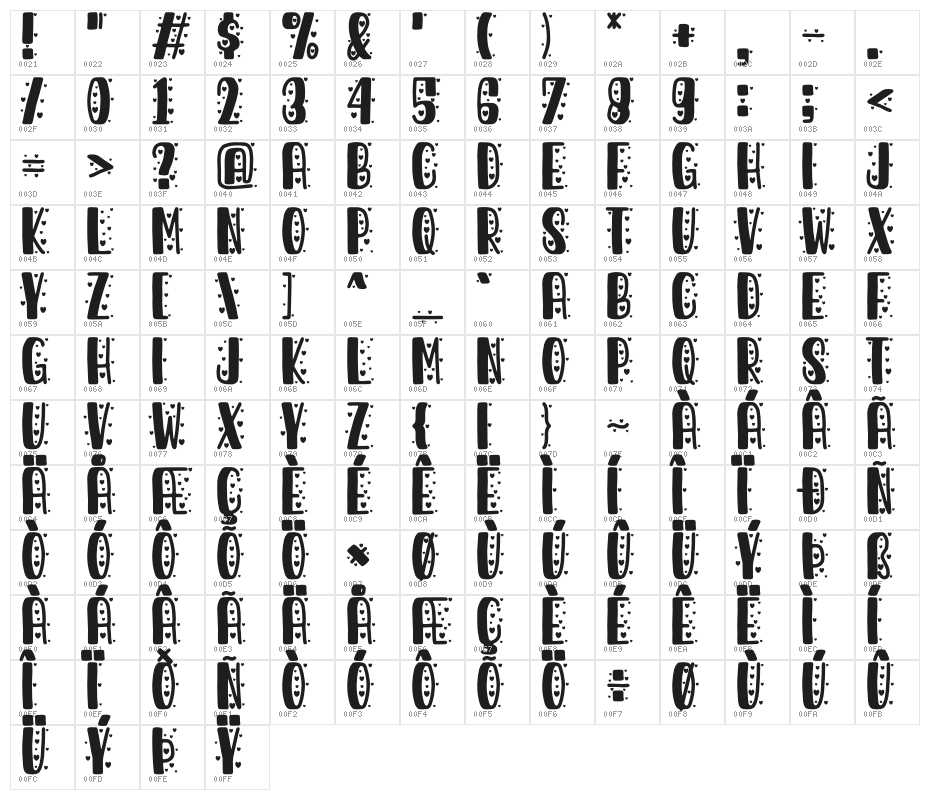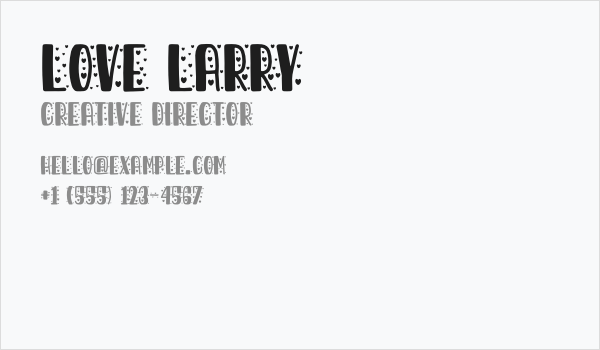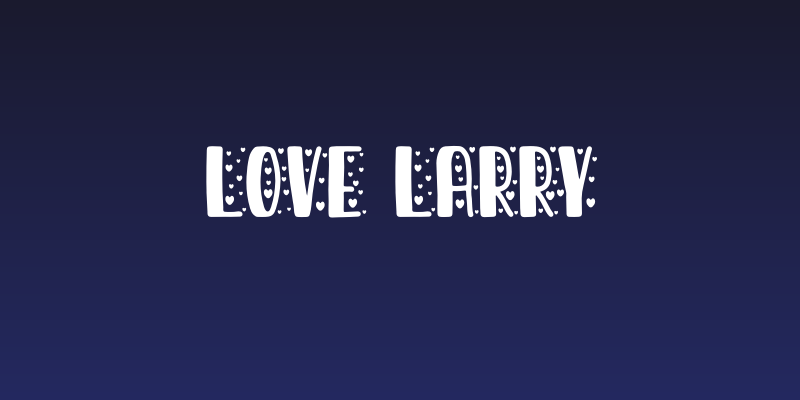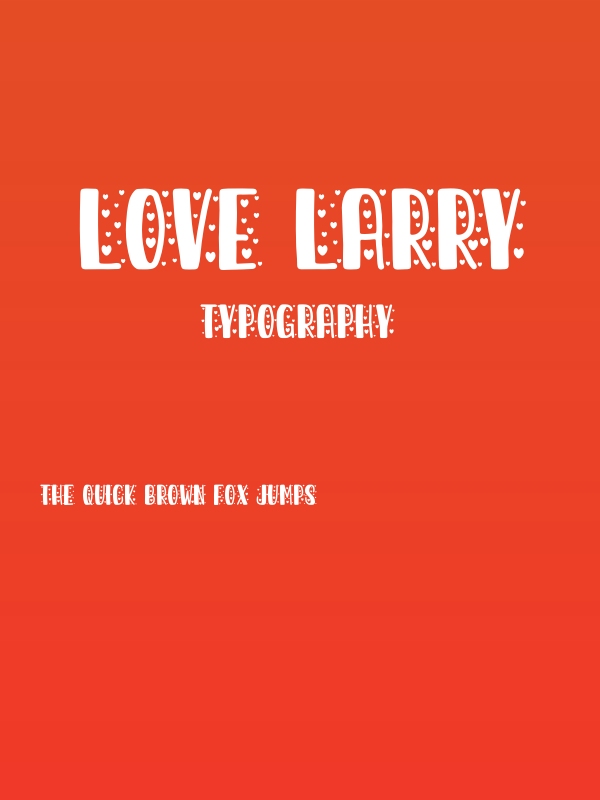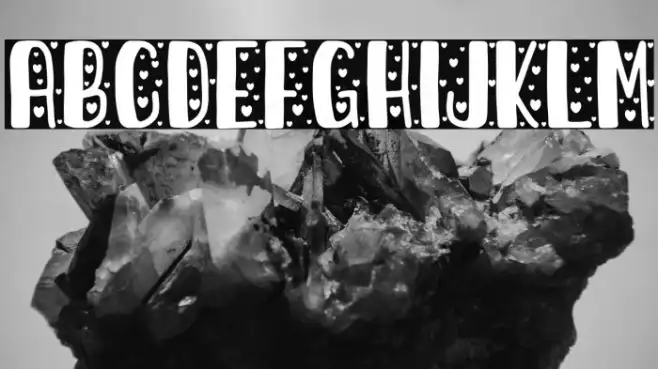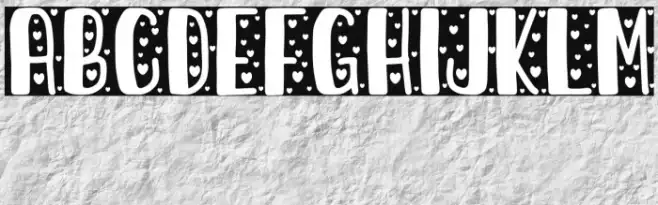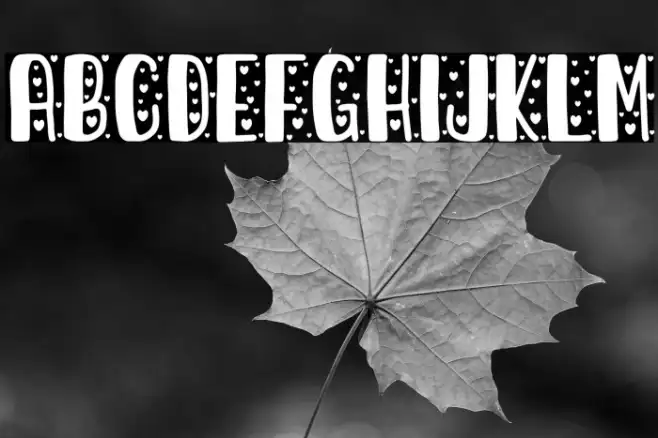
love larry Font
love larry Description
This font features a playful and whimsical design, characterized by bold, rounded letters filled with small heart shapes. The uppercase and lowercase letters maintain a consistent style, with a slightly condensed form that adds to its charm. The numerals and special characters follow the same decorative theme, making it ideal for projects that require a fun and lively touch. The heart-filled design adds a unique element, making it stand out for creative and romantic themes.
| Use Case | Headlines, Logos, Decorative text |
| Proposed Projects | Ideal for greeting cards, children's books, playful branding, and Valentine's Day promotions. |